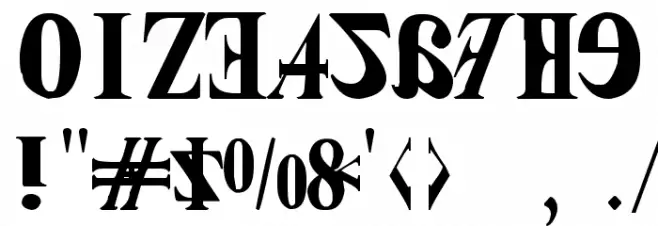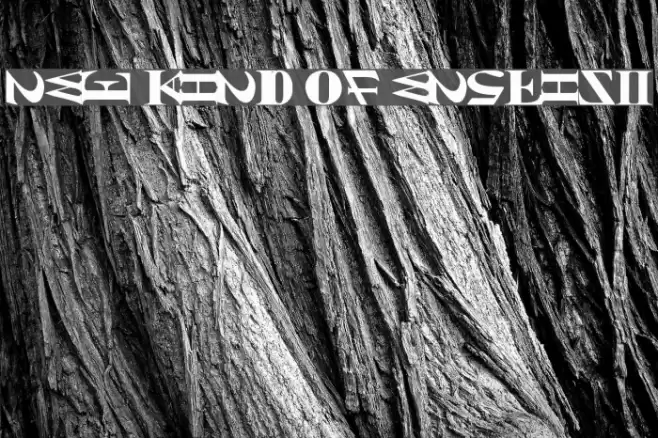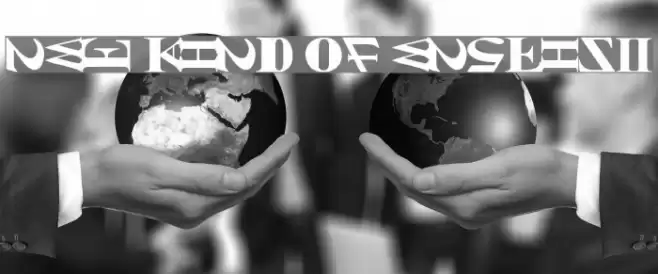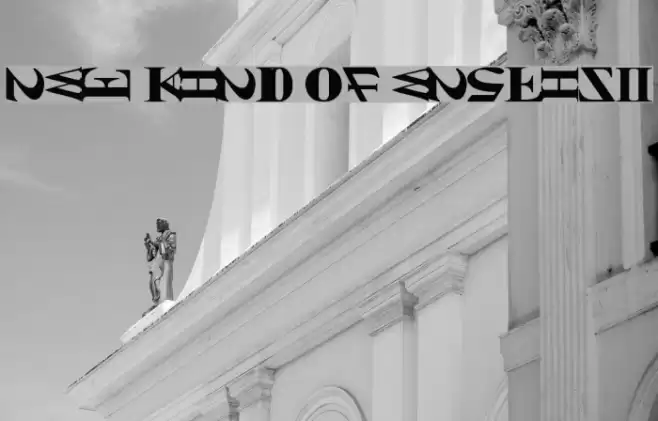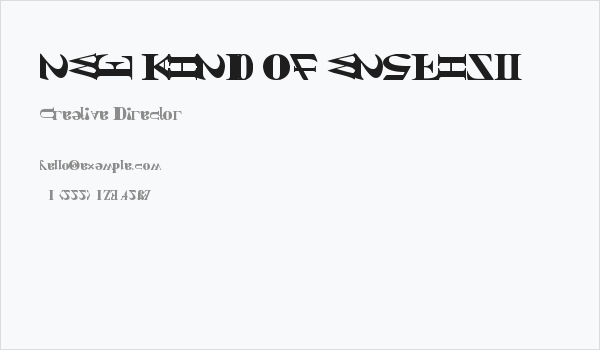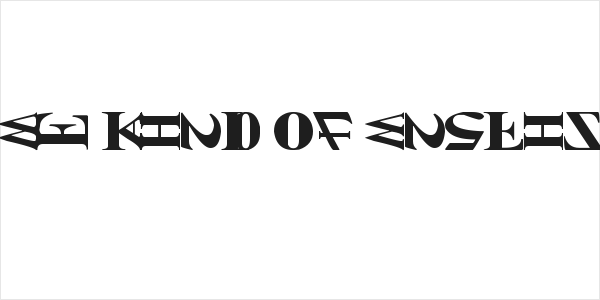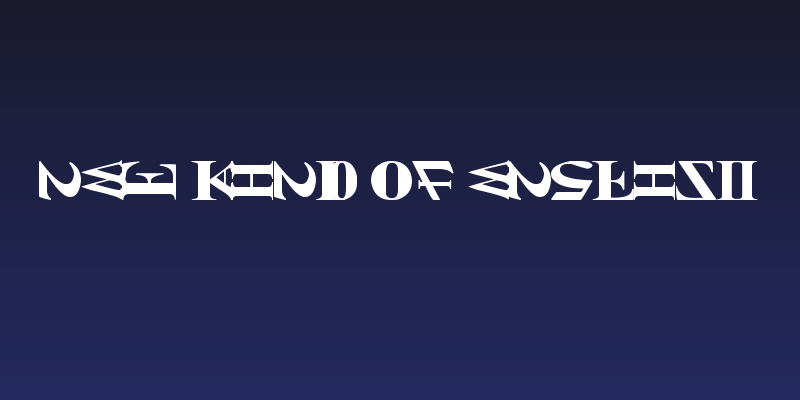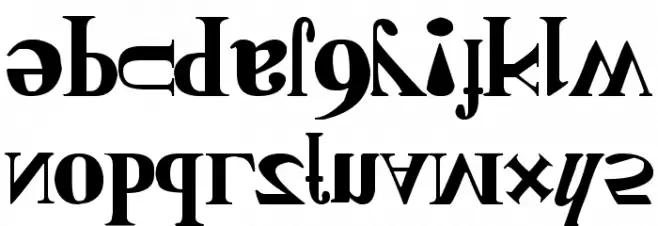
This font features a bold and striking design with a modern twist. The characters are crafted with sharp angles and unique geometric shapes, creating a visually intriguing and dynamic appearance. The uppercase letters are particularly distinctive, with some characters incorporating unexpected cuts and slashes that add to the font's edgy aesthetic. The lowercase letters maintain a consistent style, complementing the uppercase with similar angular elements. Numbers and special characters follow the same design principles, ensuring a cohesive look across all glyphs. This font's boldness and creativity make it stand out, perfect for projects that require a strong visual impact.
| Proposed Projects | Ideal for branding, posters, album covers, and any project needing a bold, modern statement. |